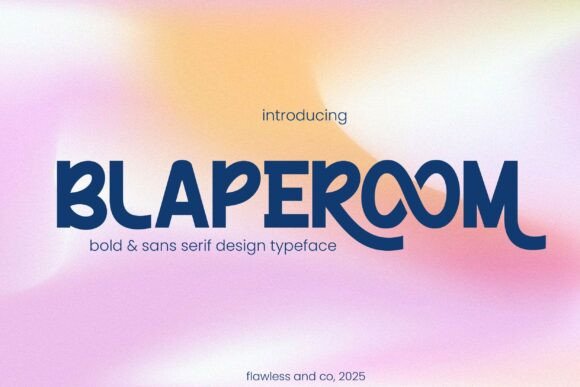
The Blaperoom Font: A Game-Changer for Bold and Modern Designs
I’ll never forget the time I was working on a project for a client who needed a bold, attention-grabbing font to make their brand stand out. I spent hours scouring the internet for the perfect font, but nothing seemed quite right. That was until I stumbled upon Blaperoom – a powerful, bold sans serif font that instantly caught my eye. With its thick strokes, clean lines, and modern geometry, Blaperoom was exactly what I needed to bring my client’s vision to life.
An Honest Review of Blaperoom
What I Love About Blaperoom ✨
• 💪 **Confidence and Strength**: Blaperoom exudes confidence and strength, making it perfect for impactful headlines, branding, posters, logos, and digital content.
• 🔍 **Versatility**: Its straightforward, no-nonsense style makes it incredibly versatile, delivering clarity and strength across various design applications.
• 💼 **Modern Geometry**: The font’s modern geometry and clean lines give it a fresh and contemporary feel.
• 👍 **Easy to Read**: Blaperoom is easy to read, even at smaller sizes, making it perfect for body text or captions.
While Blaperoom is an excellent font, it’s not without its quirks. For example:
• 🤔 **Limited Emotional Range**: Blaperoom is a bold font, but it’s not particularly suited for conveying emotions or nuance. It’s best used for headlines or titles rather than body text.
• ⚠️ **Overuse**: As with any bold font, it’s easy to overuse Blaperoom. Use it sparingly to make the most impact.
The Story Behind Blaperoom
Blaperoom was designed with one goal in mind: to create a bold, modern sans serif font that commands attention. The designer, inspired by the geometric shapes and clean lines of modern architecture, set out to create a font that’s both strong and versatile. The result is Blaperoom – a font that’s perfect for designers, crafters, and creative hobbyists who want to add a touch of confidence and strength to their designs.
Q: What is Blaperoom font best used for?
A: Blaperoom is best used for impactful headlines, branding, posters, logos, and digital content that needs a confident voice.
Q: What are some common design applications for Blaperoom?
A: Blaperoom is perfect for a variety of design applications, including print design, digital design, branding, and advertising.